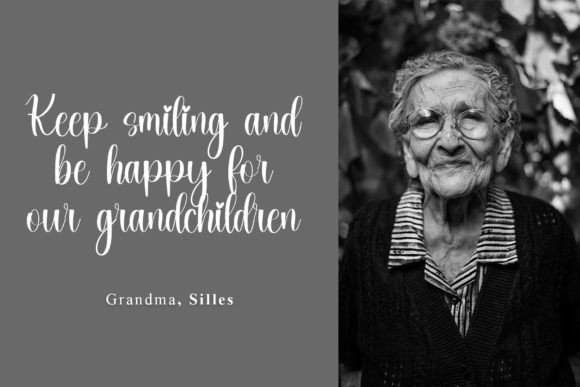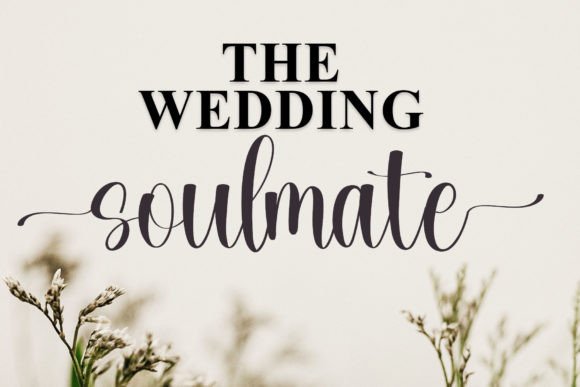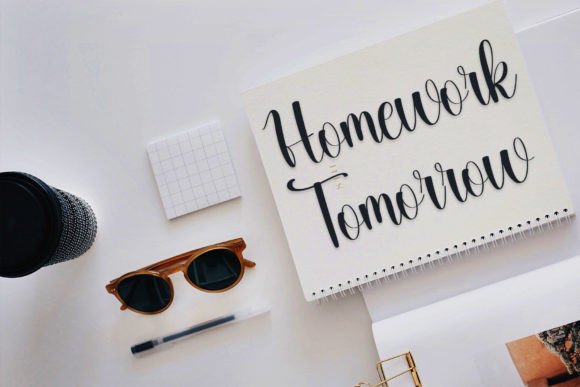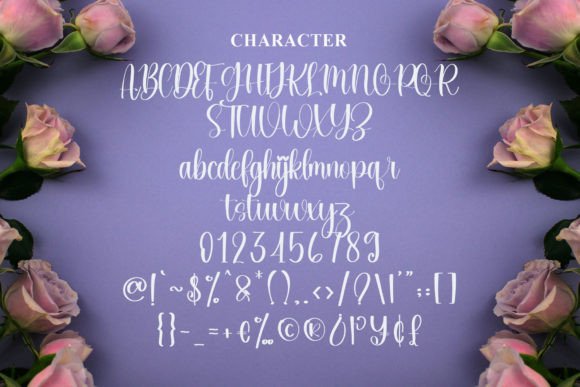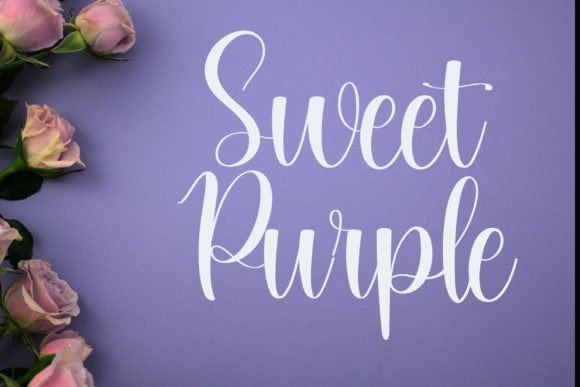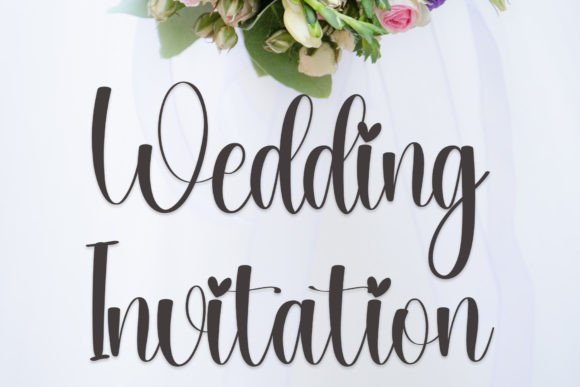
Discover the Charm of Grandma Font: A Cute Handwritten Font with a Fun and Quirky Personality
Are you tired of using the same old fonts in your designs? Do you want to add a touch of uniqueness and whimsy to your projects? Look no further than Grandma Font, a cute handwritten font that is sure to capture your heart. With its irregular and playful letterforms, Grandma Font is perfect for designers and crafters who want to add a charming and personal feel to their work.
The Personality of Grandma Font
Grandma Font is more than just a font – it’s a personality. Its fun and quirky vibe is infectious, making it perfect for designs that require a touch of playfulness. The irregular letterforms create a sense of whimsy and individuality, making each word and sentence unique. Whether you’re designing a logo, a greeting card, or a craft project, Grandma Font is sure to add a smile to your face and a touch of personality to your work.
The Benefits of Using Grandma Font
So, why should you use Grandma Font in your designs? Here are just a few benefits:
- Uniqueness: Grandma Font is a one-of-a-kind font that will set your designs apart from the rest. Its irregular letterforms ensure that each word and sentence is unique, making your designs truly stand out.
- Personality: Grandma Font has a natural, handwritten style that adds a charming and personal feel to any project. It’s perfect for designs that require a touch of warmth and personality.
- Versatility: Grandma Font is versatile and can be used in a variety of designs, from logos and branding to greeting cards and craft projects.
Grandma Font is perfect for designers and crafters who want to add a touch of uniqueness and personality to their work. Whether you’re designing a logo, a brochure, or a craft project, Grandma Font is sure to add a charming and personal feel. Here are just a few ways you can use Grandma Font:
- Logo design: Use Grandma Font to create a unique and memorable logo that reflects your brand’s personality.
- Greeting cards: Add a touch of whimsy and personality to your greeting cards with Grandma Font.
- Craft projects: Use Grandma Font to add a personal touch to your craft projects, such as scrapbooking, journaling, and paper crafting.
- Branding: Use Grandma Font to create a consistent brand image that reflects your personality and style.
Tips for Using Grandma Font
Here are a few tips for using Grandma Font in your designs:
- Use it sparingly: Grandma Font is a statement font, so use it sparingly to add emphasis and personality to your designs.
- Pair it with other fonts: Pair Grandma Font with other fonts to create a unique and interesting contrast.
- Experiment with colors: Grandma Font looks great in a variety of colors, so experiment with different colors to find the one that works best for your design.
- Have fun: Most importantly, have fun with Grandma Font! Its playful and quirky personality is sure to bring a smile to your face and inspire your creativity.
Grandma Font is a cute handwritten font with a fun and quirky personality that is sure to add a touch of uniqueness and whimsy to your designs. With its irregular and playful letterforms, Grandma Font is perfect for designers and crafters who want to add a charming and personal feel to their work. Whether you’re designing a logo, a greeting card, or a craft project, Grandma Font is sure to inspire your creativity and bring a smile to your face. So why not give Grandma Font a try and see the difference it can make in your designs?